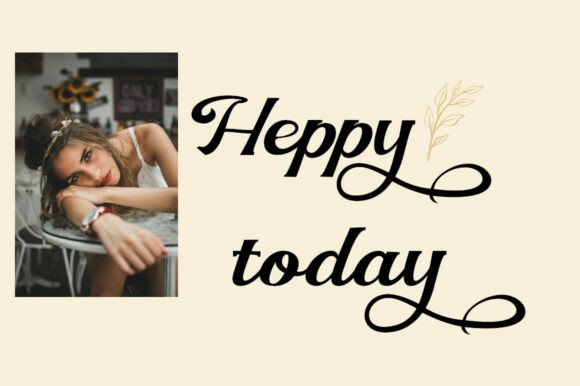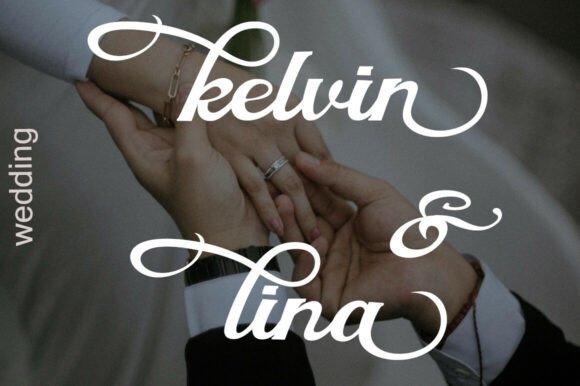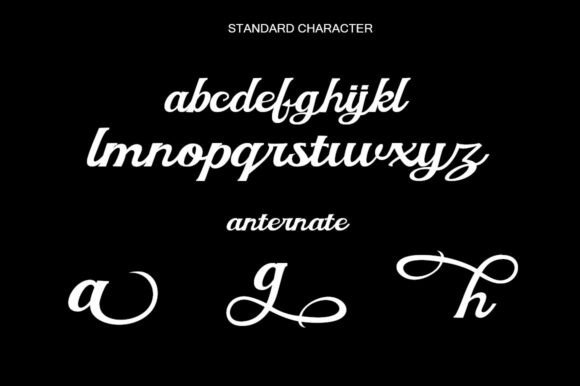
Introduction to Qailyna Font
Qailyna is a font that exudes softness and elegance.
Qailyna is a font that exudes softness and elegance. With graceful strokes and a feminine touch, this font will elevate any design project to the highest level, be it branding, titles, wedding designs
Key Features of Qailyna Font
Why Choose Qailyna Font?
Qailyna Font offers exceptional quality and versatility, making it a valuable addition to your design toolkit. Whether you’re creating for personal projects or commercial use, Qailyna Font delivers professional results.